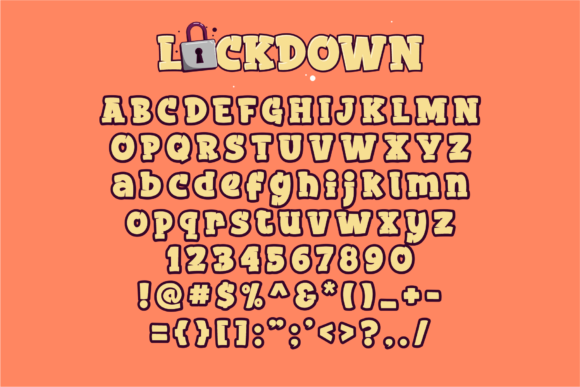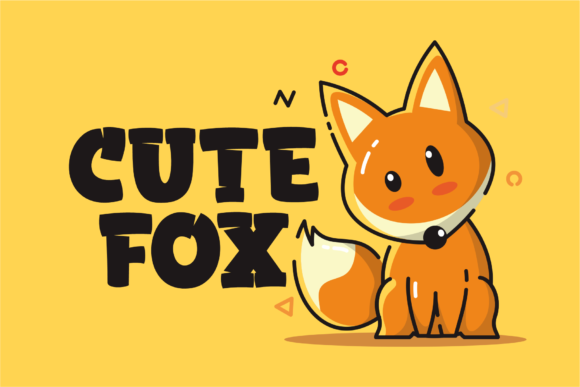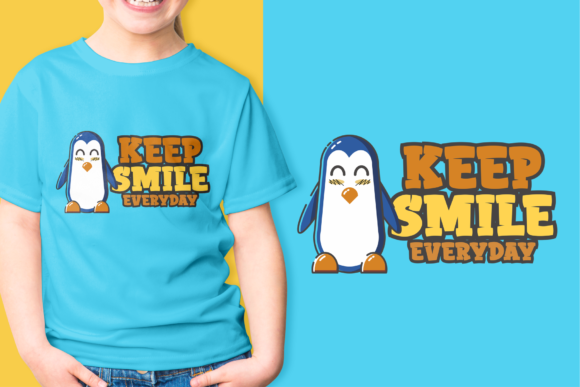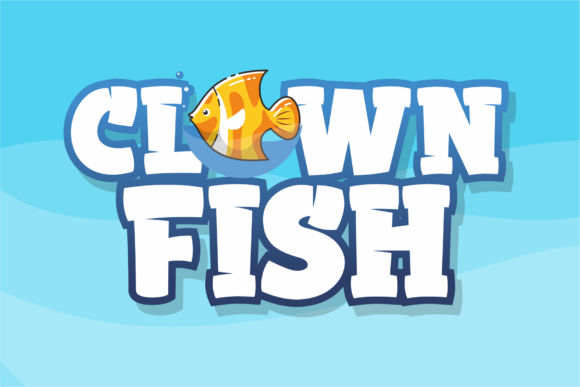
Introduction to Lockdown Font
Have you ever been working on a creative project, pouring your heart and soul into it, only to feel like it’s missing that extra oomph? You know, that special something that sets it apart from the rest? That’s where the Lockdown Font comes in – a charming display font that will breathe new life into your design and make it truly unforgettable.
As designers, we’re always on the lookout for that perfect design resource to elevate our work. And when you need a font that exudes fun, quirkiness, and authenticity, Lockdown Font is the perfect choice. With its unique style and versatility, this font is sure to turn your creative ideas into a true standout – whether you’re working on a personal project or a client brief.
Key Features of Lockdown Font
- High-quality, professional font design perfect for creative projects and designs.
- Unique, modern design style that adds a touch of sophistication to any creative project.
Honest Review: Lockdown Font
I recently stumbled upon the Lockdown Font, and I must say it’s an interesting addition to any creative project. As a designer, I appreciate fonts that offer versatility and uniqueness, and the Lockdown Font delivers.
What works well is its clean and modern aesthetic, making it suitable for a variety of designs, from digital to print. The font’s high quality is evident in its crisp lines and smooth typography. The transparent background is also a nice touch, allowing it to blend seamlessly into any design.
Here are some of the key features I like:
- High-quality typography
- Modern and clean aesthetic
- May not be suitable for complex or detailed designs
- Limited customization options
- Not ideal for use in small font sizes
Overall, I’d say the Lockdown Font is a solid design resource for any creative project. While it may have some limitations, its unique aesthetic and high-quality typography make it a worthwhile addition to any designer’s toolkit.
Lockdown Font is a high-quality design resource perfect for creative projects. This font features a transparent background, making it ideal for a variety of applications.
Use Lockdown Font in conjunction with a solid background to create a striking visual effect. Experiment with different font sizes and colors to add depth and interest to your design.
Common Use Cases for Lockdown Font
Lockdown Font is perfect for creating eye-catching titles, headings, and labels. Use it to add a touch of sophistication to your designs, from logos to infographics.